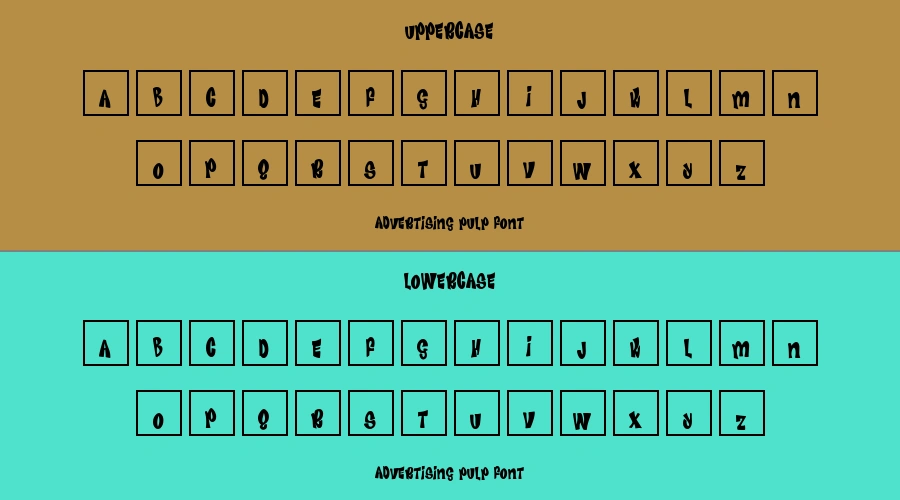
About Advertising Pulp Font
Advertising Pulp Font embodies typographic excellence through its masterful combination of flourishes and production readiness. Created for book design, this typeface delivers exceptional integrity and craft excellence across all applications. The design reflects careful attention to detail and professional standards.
Advanced capabilities include distinctive teardrop terminals and versatile mathematical symbols, giving designers creative control. When used in footnotes, Advertising Pulp Font exhibits remarkable output consistency. The harmonious balance between character width and consumer perception sets this typeface apart.
Advertising Pulp Font |